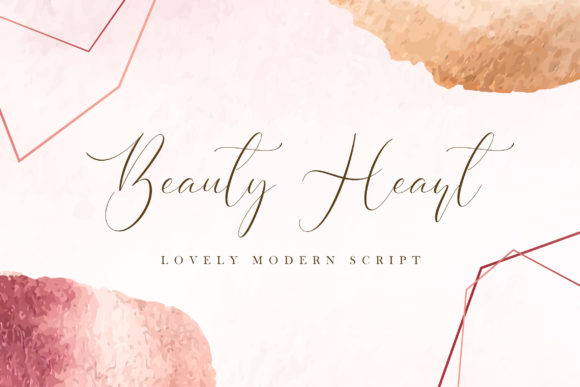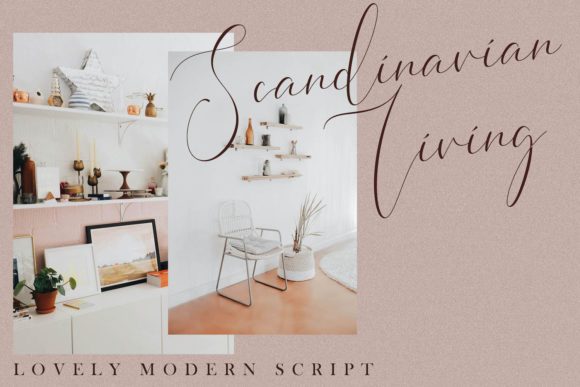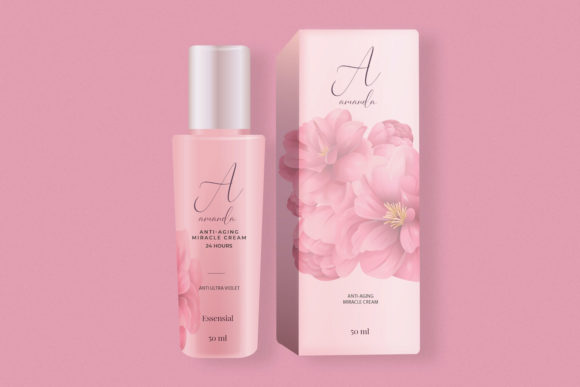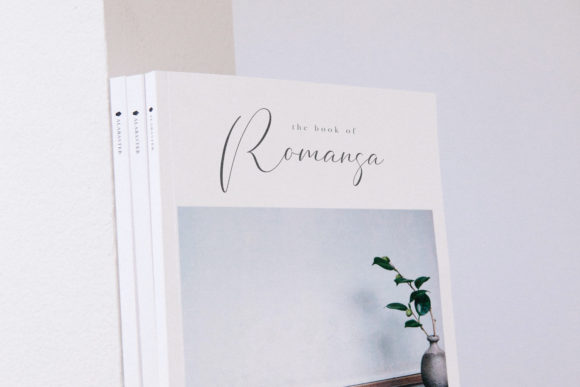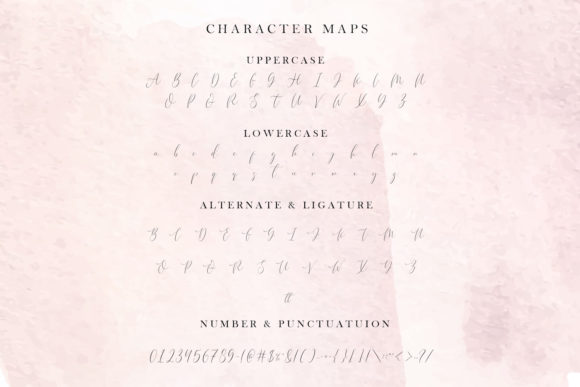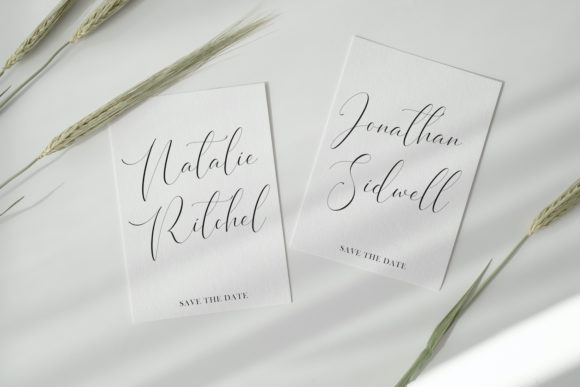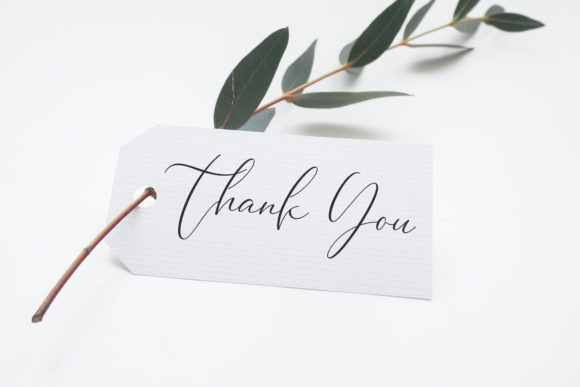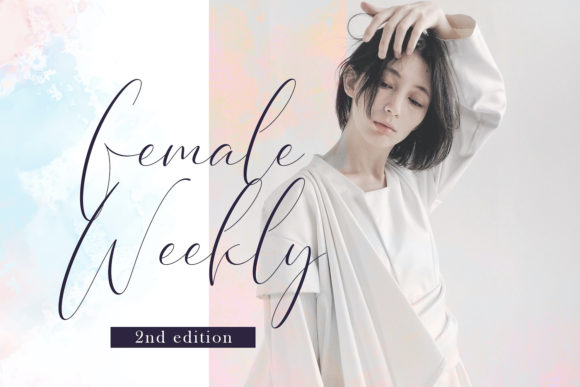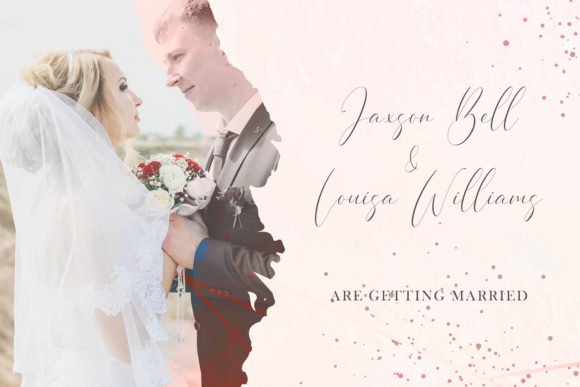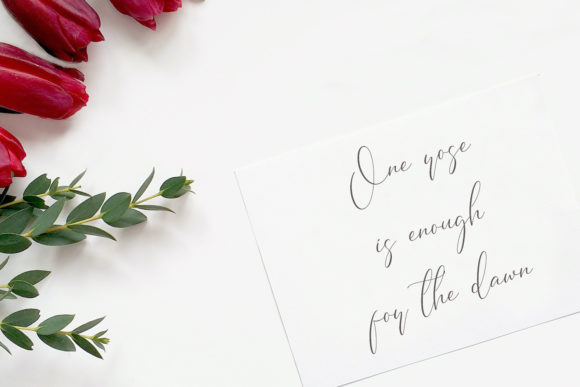
Beauty Heart Font
About Beauty Heart Font
Beauty Heart is a sweet and gorgeous handwritten font. It will elevate a wide range of design projects to the highest level, be it branding, headings, wedding designs, invitations, signatures, logos, labels, and much more!